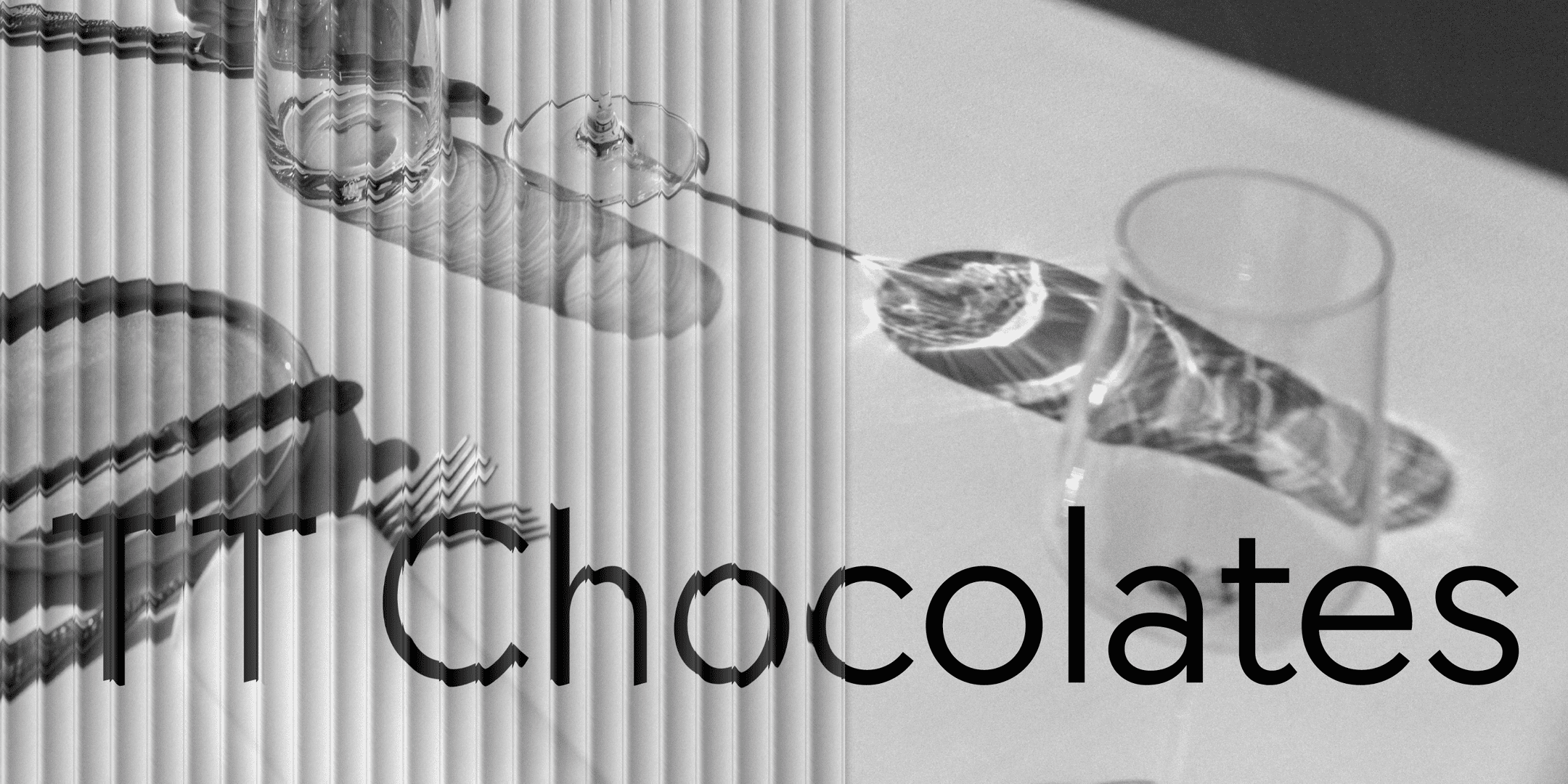
TT Chocolates Font is ideal for artisan chocolate packaging, gourmet confectionery branding, sweet bakery signage, luxury dessert menus, premium candy shop materials, indulgent café designs, Valentine's Day promotions, and delicious food product labels.
This font is exciting because it captures the irresistible sweetness and artisanal craftsmanship of premium chocolate with rich, indulgent letterforms that evoke the sensory pleasure of fine confectionery. The TT Chocolates Font embodies the luxurious experience of gourmet sweets and artisan craftsmanship, transforming ordinary text into tempting expressions that make every word feel as delicious and satisfying as the finest handcrafted chocolates.
The TT Chocolates Font family includes sweet variations such as Regular, Bold, Light, Creamy, Italic, Truffle, Condensed, and Extended versions, providing confectionery designers with comprehensive tools to create delicious typography that celebrates the artistry and indulgence of premium chocolate and gourmet sweets across all culinary applications.
Indulge in sweet perfection with TT Chocolates Font Free Download that brings gourmet luxury to every confectionery design project. This deliciously crafted typeface combines culinary aesthetics with contemporary functionality, making it perfect for chocolatiers, premium bakeries, and luxury food brands celebrating artisanal craftsmanship and indulgent experiences. The font's rich character design ensures your message feels luxurious and tempting while maintaining excellent readability across all sweet applications. Whether you're developing confectionery brand identities, creating dessert menu designs, or designing packaging for premium sweets, TT Chocolates Font delivers the indulgent typography that resonates with audiences who appreciate gourmet quality and artisanal excellence. Its versatile design works beautifully across digital and print media while preserving the sweet sophistication that makes confectionery communications feel genuinely luxurious and worthy of the finest artisan chocolates that transform simple ingredients into extraordinary culinary experiences.